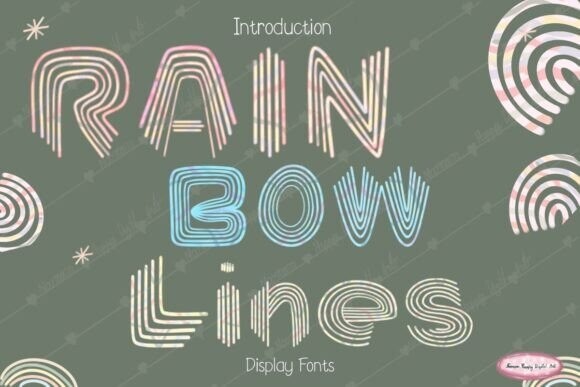
Rainbow Lines Font
“Rainbow Lines Fonts” is a stylish and versatile multi-line font. Ridge 5 was created to provide a complete typeface with uppercase, lowercase, and full European diacritics. It also includes alternate characters for added variety. The geometric shapes and natural flow give it a distinctive and unique look. This font is ideal for branding designs, baby gift packages, and quirky projects. It’s perfect for greeting cards, Valentine’s Day themes, dessert shop branding, and more.